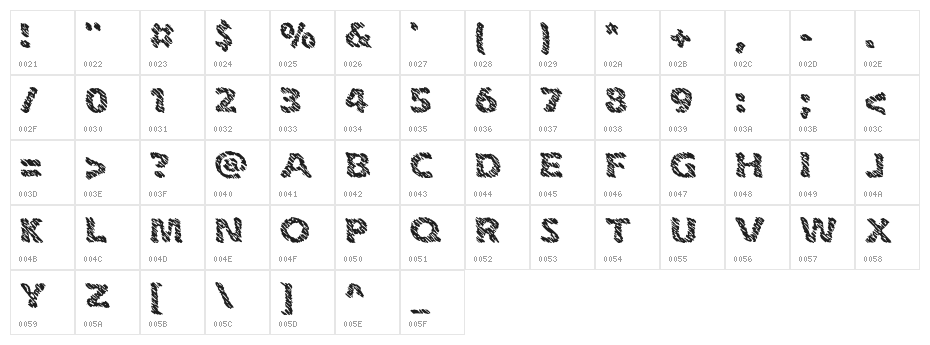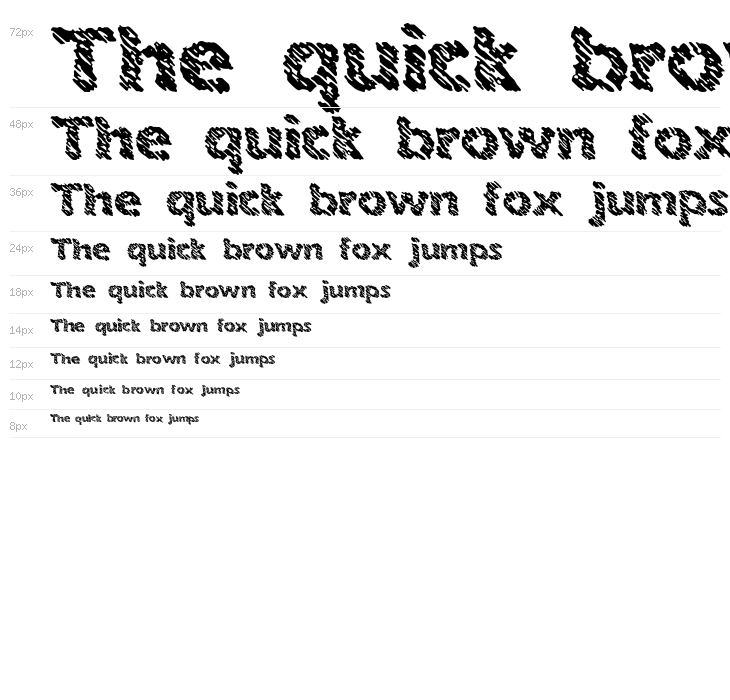
Ink Swipes BRK Font
Ink Swipes BRK Description
This font features a bold and dynamic design that mimics the appearance of ink swipes or brush strokes. Each character is filled with a textured pattern that gives it a hand-crafted and artistic feel. The letters are bold and slightly condensed, with irregular edges that enhance the organic and spontaneous look. This style is particularly eye-catching and can add a creative flair to any project. The font includes both uppercase and lowercase letters, numerals, and a variety of special characters, making it versatile for different design needs.
| Overall Style | Artistic, Creative |
| Use Case | Headlines, Posters, Branding |
| Proposed Projects | Ideal for artistic projects, posters, branding materials, and any design that requires a bold and creative touch. |